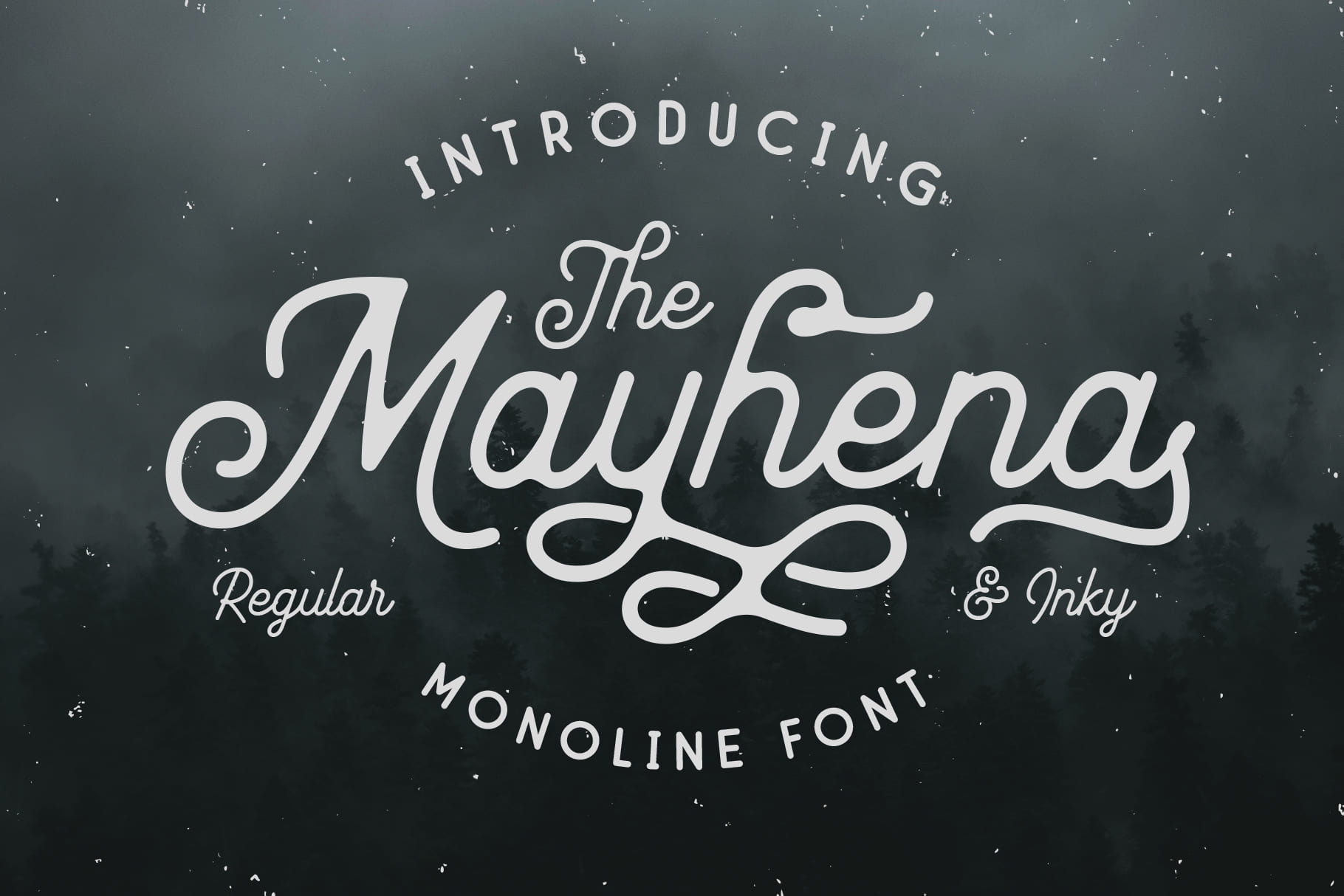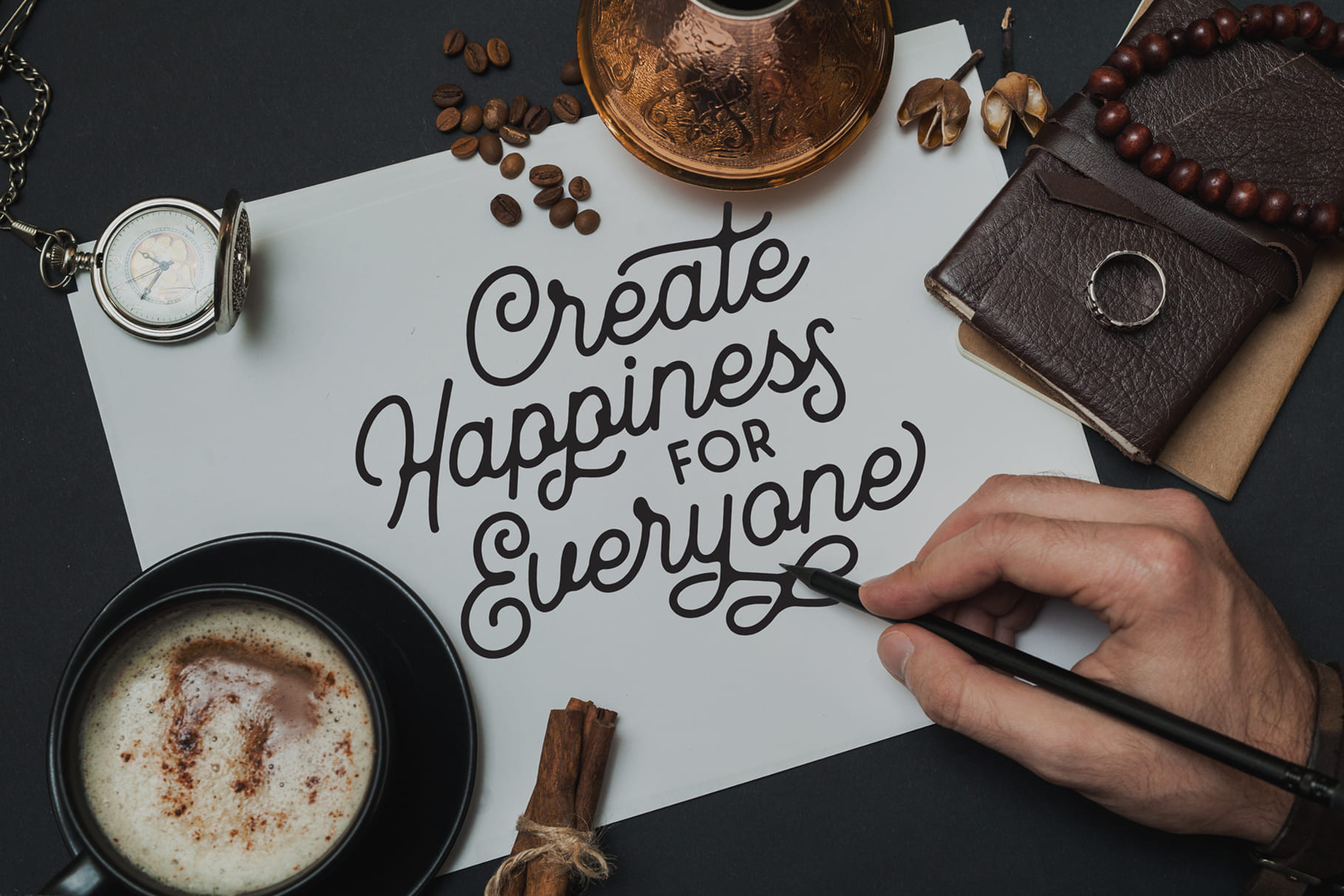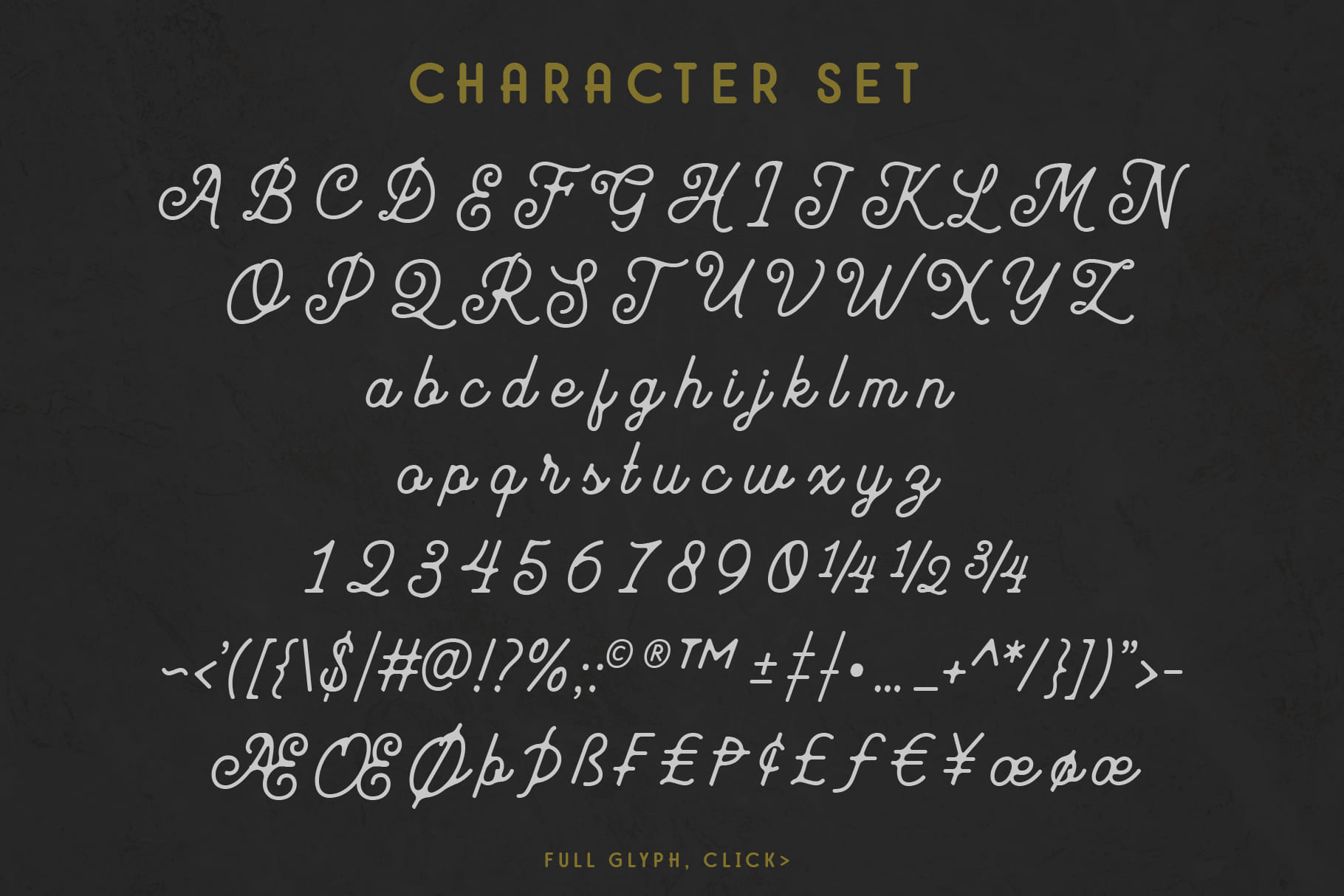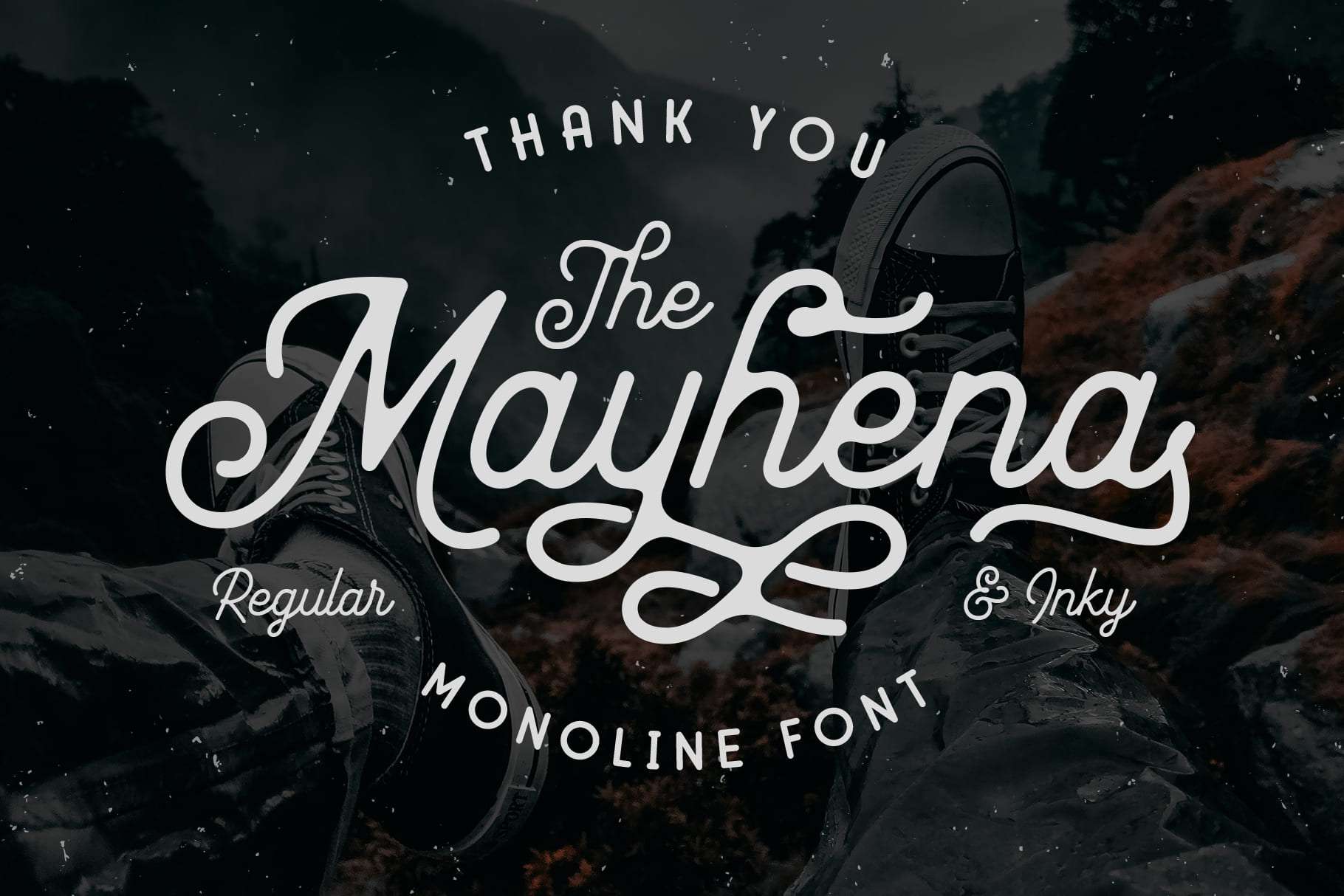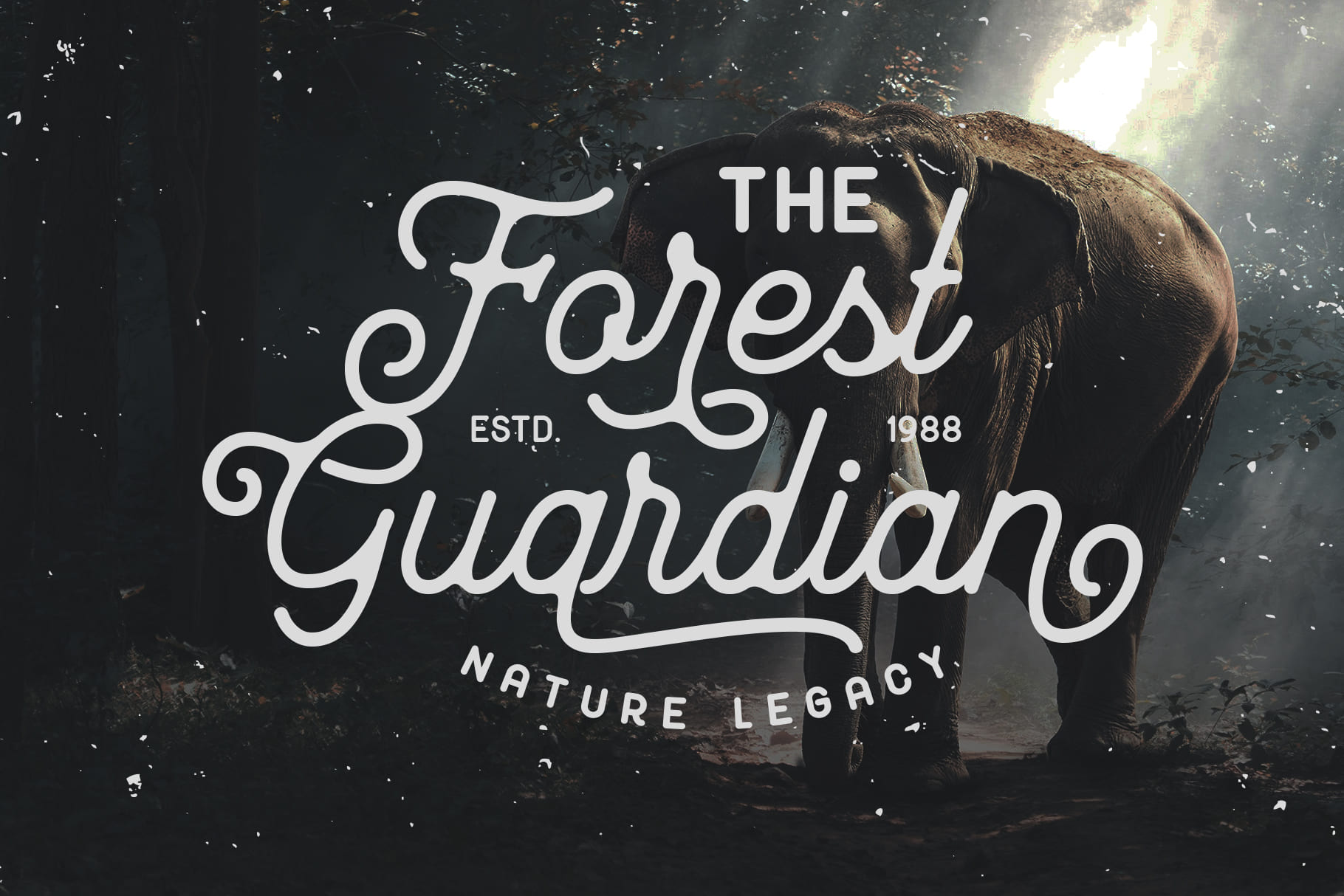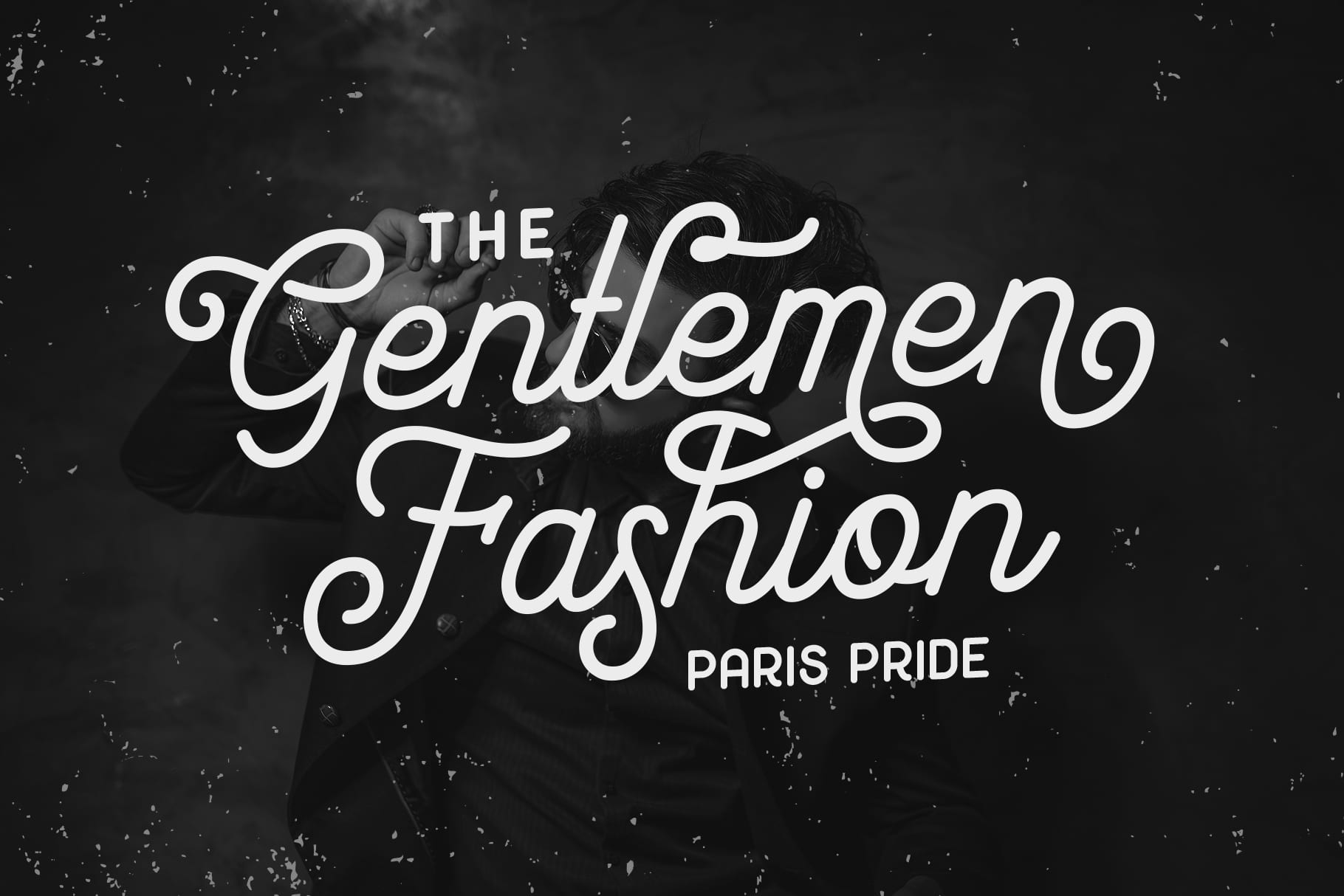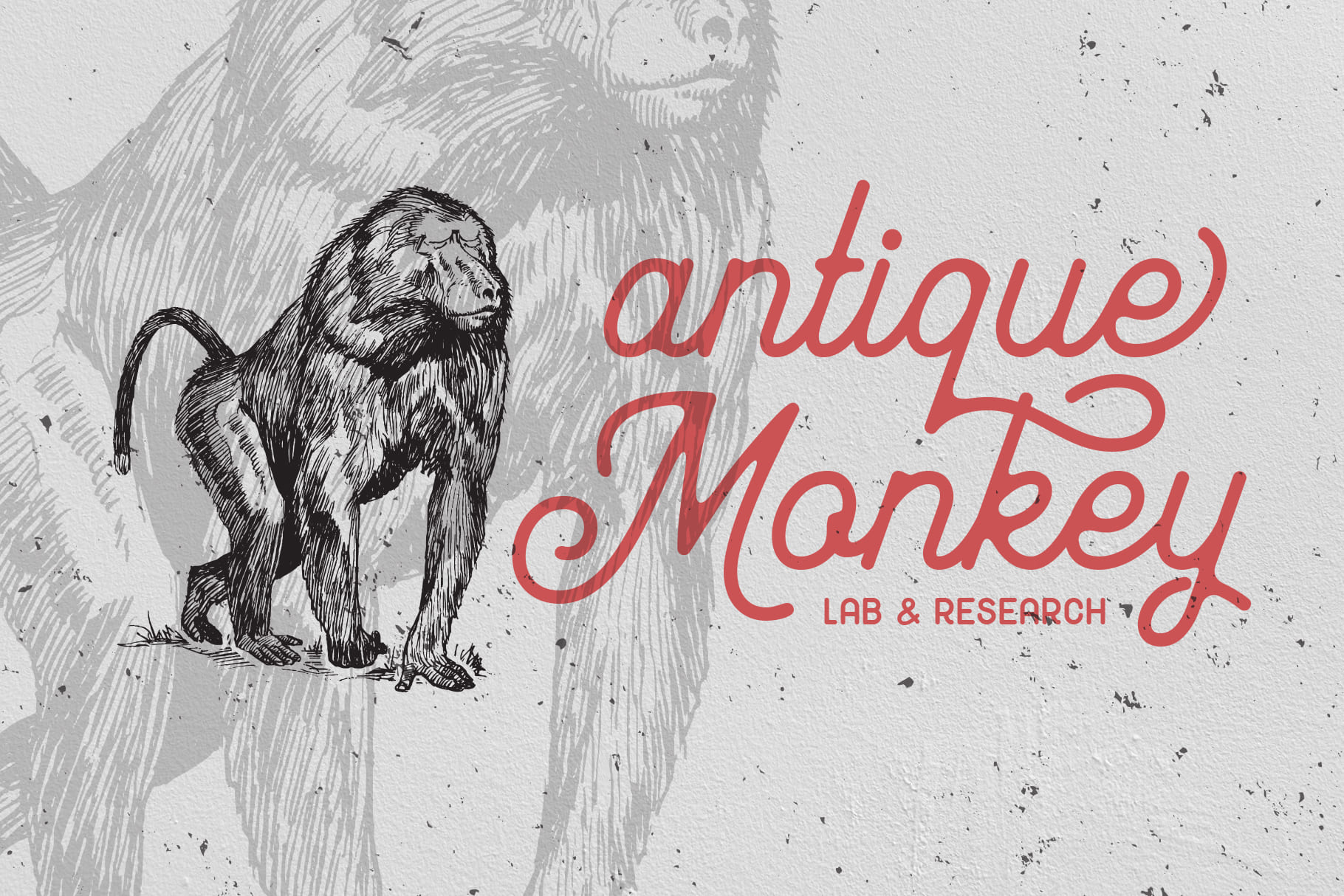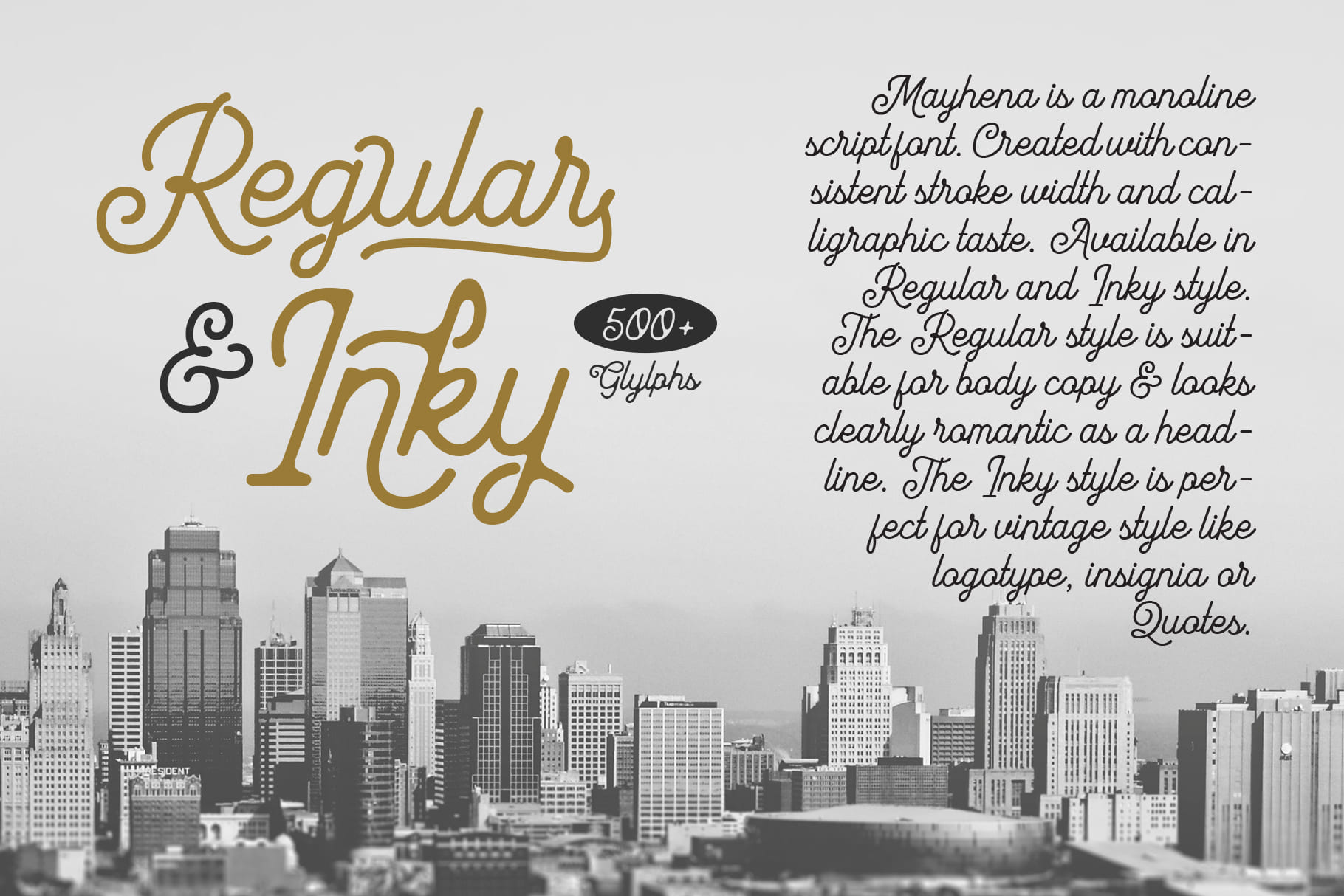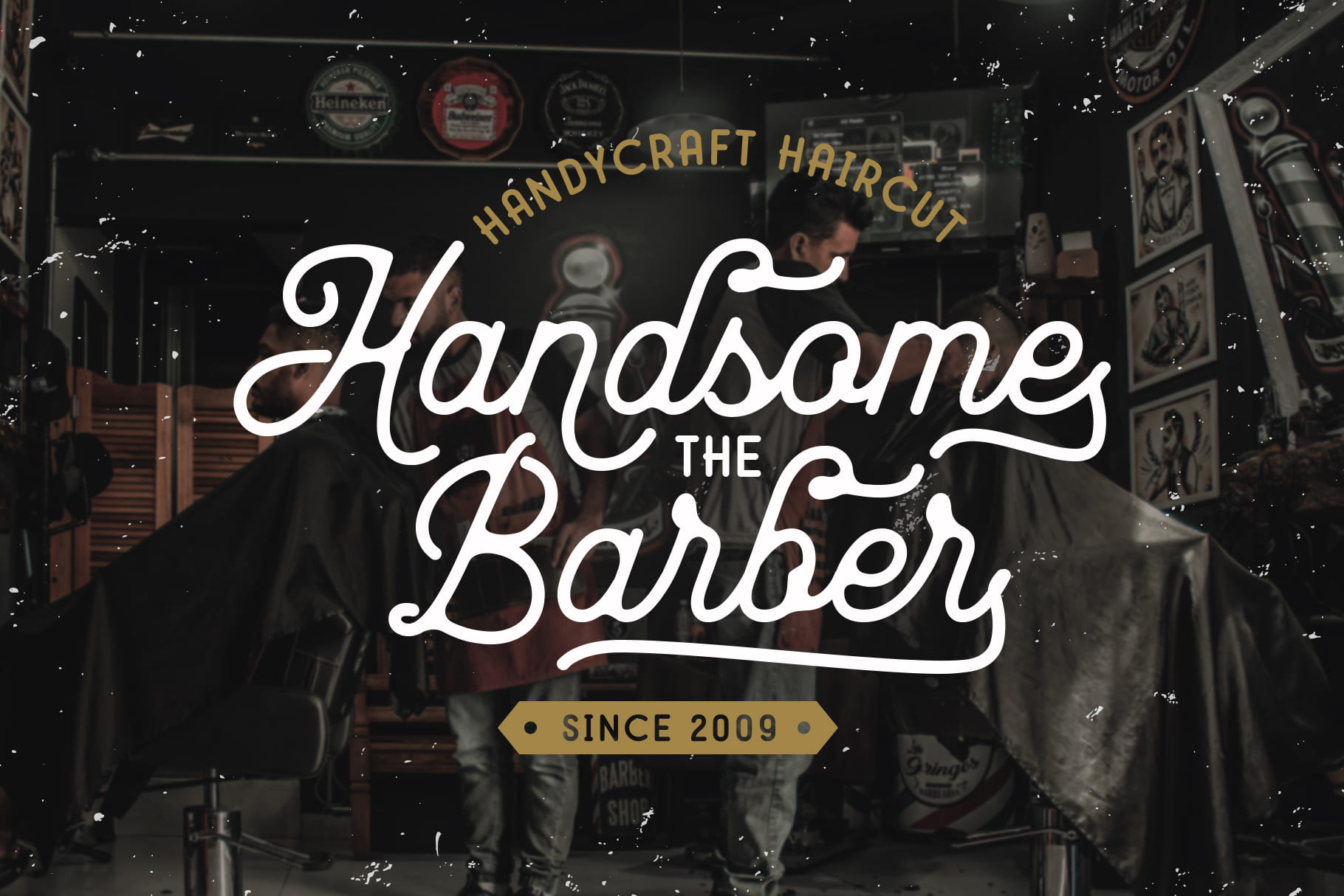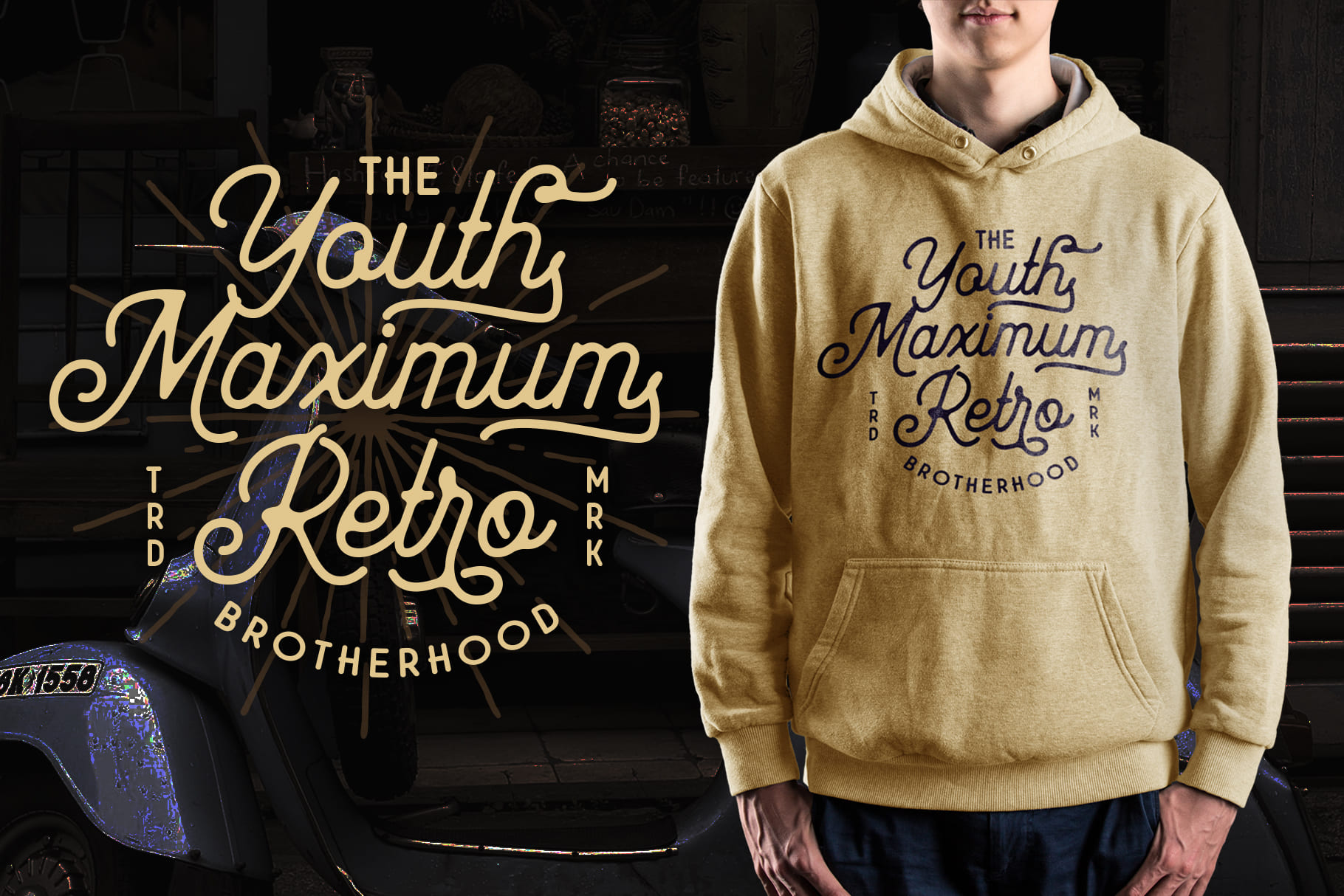
Mayhena (2 fonts)
From Arterfak Project
Mayhena comes in two styles: Regular and Inky style that you can use to create beautiful vintage typography on design projects such as t-shirts, merchandise, logo, insignia, posters, magazines, packaging and more. Mayhena consists of 500+ glyphs, comes with several alternates and stylistic sets and supports 27 languages.